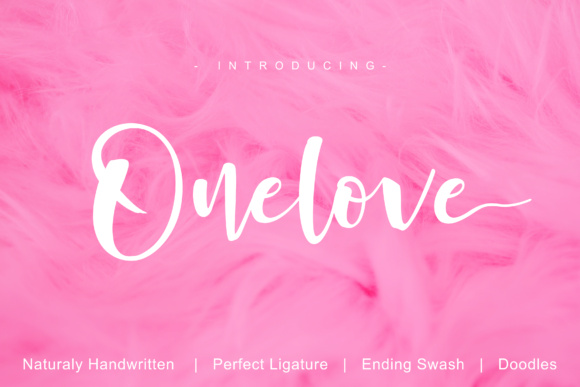
Onelove Font
In a world of digital monotony, typography emerges as a radiant beacon of individuality, a conduit through which your creative spirit can soar. Discover Onelove Font, an exquisite creation by the visionary Abodaniel, a font family that captivates with its striking presence and elegant grace. Onelove Font is a symphony of visual artistry, a handwritten masterpiece meticulously crafted to ignite your imagination and elevate your designs to unprecedented heights.
Onelove Font possesses a captivating allure that draws the eye, inviting you to explore the depths of its beauty. Its striking, yet elegant touch dances across your screen, leaving a trail of visual enchantment. With its exceptional readability, Onelove Font ensures that your messages are conveyed with clarity and impact, leaving an indelible impression on your audience.
Unleash the boundless versatility of Onelove Font, a font family that seamlessly adapts to a myriad of creative endeavors. Whether you're crafting heartfelt quotes that resonate with your soul, shaping a brand identity that exudes sophistication, designing invitations that evoke a sense of timeless elegance, or creating watermarks that leave an indelible mark of authenticity, Onelove Font rises to every occasion with effortless grace.
Step into the realm of visual storytelling with Onelove Font and watch as your words transform into captivating narratives. Its beauty effortlessly enhances advertisements, product designs, labels, and social media posts, adding a touch of refined artistry that elevates your creations beyond the ordinary. Let Onelove Font be your guiding light as you craft stationery that exudes a sense of personal charm, a reflection of your unique style.
As a bonus, Onelove Font comes adorned with an array of delightful doodles, whimsical embellishments that sprinkle an extra layer of magic onto your designs. These enchanting doodles dance and twirl, adding a touch of playfulness and wonder to your creations. Embrace the limitless possibilities of Onelove Font and embark on a journey of creative exploration that knows no bounds.